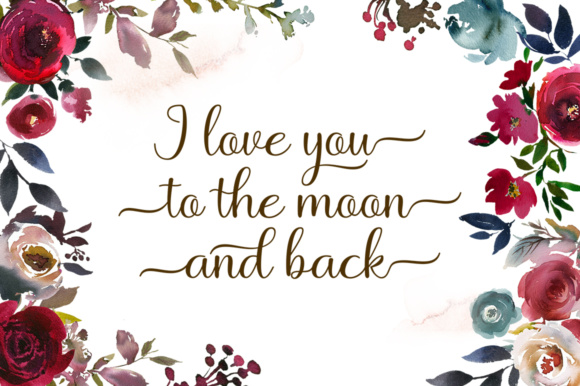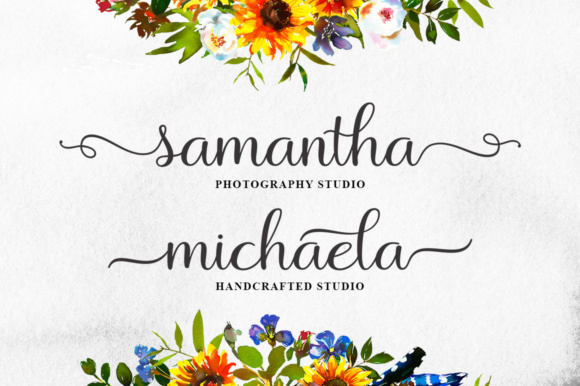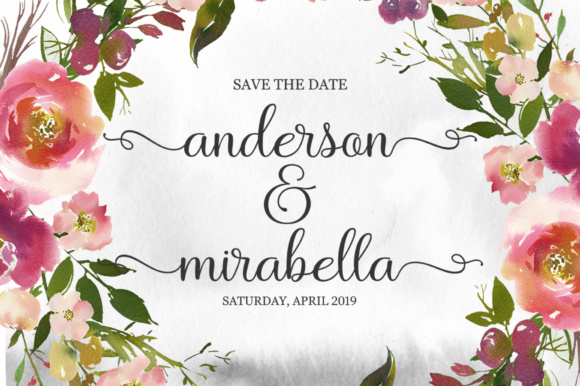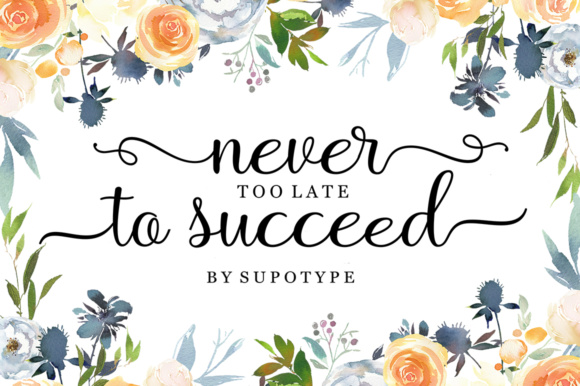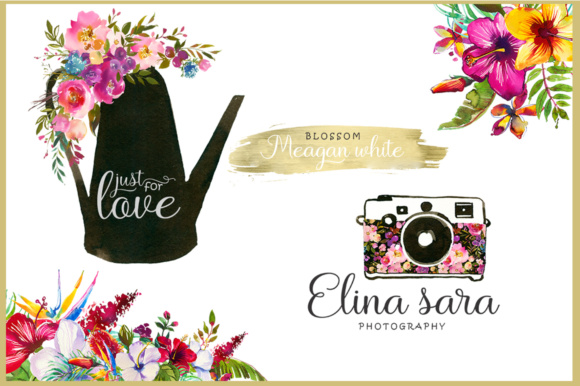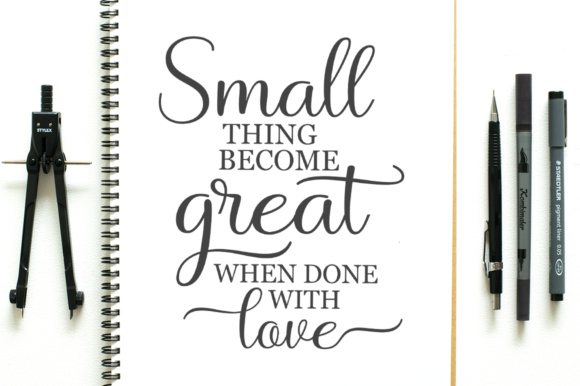
Miadiena Font
About Miadiena Font
Miadiena is a beautiful, swashy font that is perfect for a wide range of themes! This calligraphy based script looks great in Springy or romantically inclined designs, and adds a ton of style to any type of work.